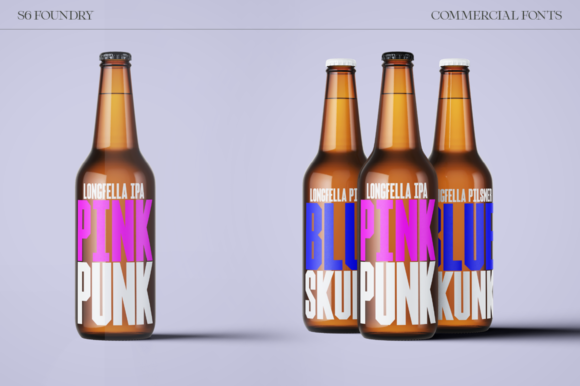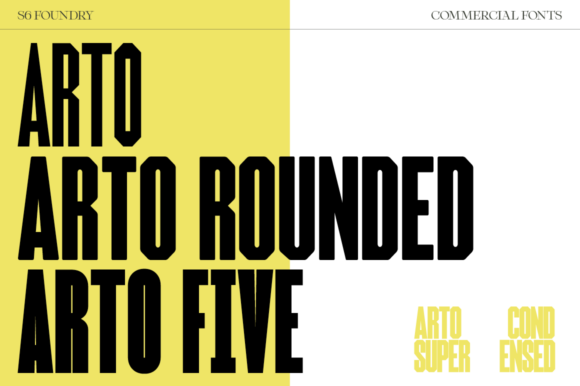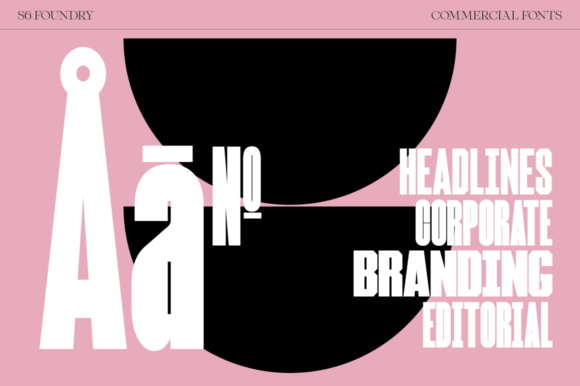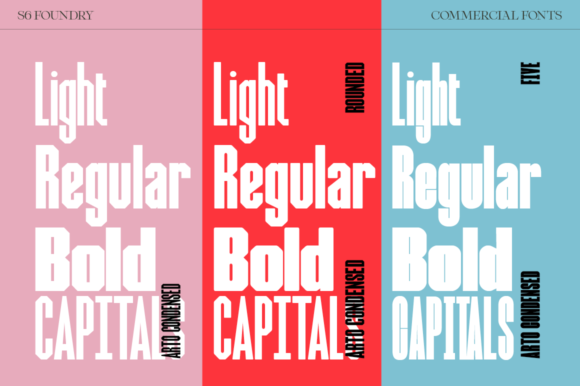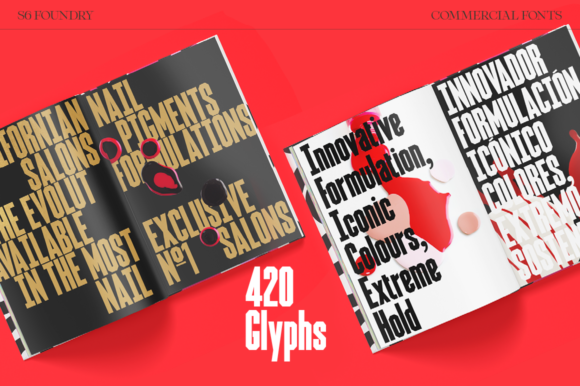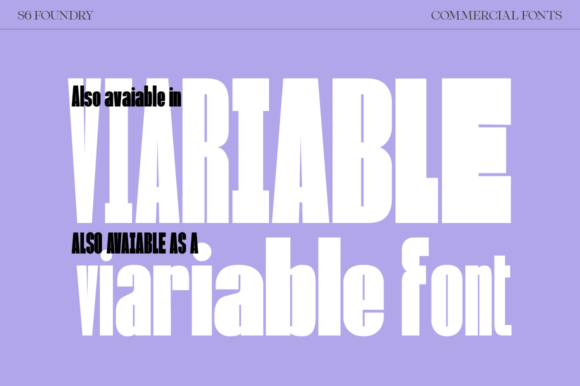
Discover the Power of Arto Font: Elevate Your Designs
You know that moment when a single element brings your entire design project together? For many creatives, it’s the font that makes all the difference. The right font can convey tone, evoke emotion, and set the tone for the entire visual identity of your work.
Enter Arto Font, a bold and thick lettered sans serif font that’s perfect for designers looking to make a statement. With its versatility and unique style, Arto Font is the perfect addition to any project. Whether you’re working on a bold logo, a catchy advertisement, or a modern website, Arto Font is sure to elevate your designs and make them stand out.
Arto Font Key Features
- Font Family: Arto Font is a sans-serif font family designed for digital use.
- Size: The font family comes in 6 weights (Thin, Light, Regular, Medium, Bold, and Black) to cater to diverse design needs.
- Resolution: Optimized for high-resolution displays, making it perfect for modern digital applications and print materials.
- Unique Characteristics: The font features a clean, modern design with geometric shapes and a high x-height, making it highly legible and versatile.
Arto Font Review
Overall, I found the Arto font to be quite unique and interesting. It’s definitely a bold choice for designers looking to add some personality to their projects. ✨
- Arto’s playful and quirky aesthetic makes it perfect for creative and innovative designs.
- The font is highly customizable, allowing designers to adjust the weight, width, and even the subtle color variations.
- Arto’s bold and expressive feel works particularly well in headings and titles.
However, I did find a few limitations to the Arto font that might make it less suitable for certain projects.
- The font’s irregular shapes and bold strokes can make it difficult to read at smaller sizes.
- Arto’s playful aesthetic might not be suitable for more conservative or traditional designs.
- The font’s customizability can also make it overwhelming to work with, especially for designers who prefer a more streamlined process.
Overall, I think the Arto font is a great choice for designers who want to add some personality and flair to their projects. While it may not be suitable for every project, it’s definitely worth considering for designs that require a bold and creative touch.
For optimal results, use Arto Font in combination with bold or italic styles to add emphasis to your text. Experiment with different font sizes and colors to create visually appealing designs.
Arto Font is ideal for use in:
- Modern logos and branding materials
- Web design and UI/UX applications
Alternatives to Arto Font for Designers
Lato Font is a sans-serif typeface designed by Łukasz Dziedzic. It’s a modern and clean font suitable for body text and headings. Lato Font is more versatile than Arto Font, with a larger font family and more weights available.
Use Lato Font when you need a professional and approachable font for your design. It’s an excellent choice for websites, magazines, and corporate materials.
Montserrat Font is a sans-serif typeface designed by Julieta Ulanovsky. It’s a geometric font with a urban feel, inspired by the streets of Montserrat, Argentina. Montserrat Font is more condensed than Arto Font, making it suitable for headlines and titles.
Use Montserrat Font when you need a bold and modern font for your design. It’s an excellent choice for websites, apps, and advertising materials.
Abril Fatface Font is a serif typeface designed by Pablo Parra. It’s a elegant and luxurious font suitable for titles, headings, and body text. Abril Fatface Font is more decorative than Arto Font, with a more intricate design and subtle flair.